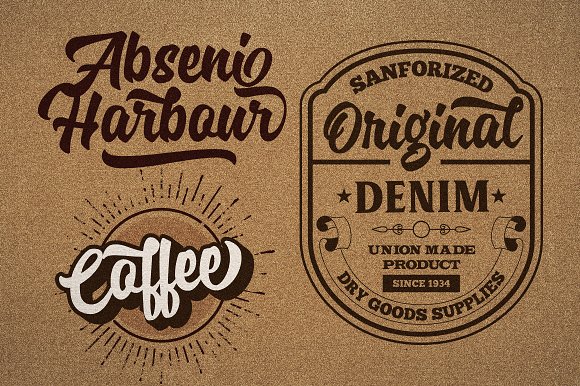
Specta Retro Script Font
Hi designer! Befonts introducing new script font Specta. Specta Font designed and shared by  identitype.co. Specta Typeface Inspired by Retro style and combination with Hand Lettering style. And a very bouncy baseline It has a perfectly paired complimentary marker font , and a super handy set of bonus Swash. Ideal for logos, handwritten quotes, product packaging, header, poster, merchandise, social media & greeting cards.